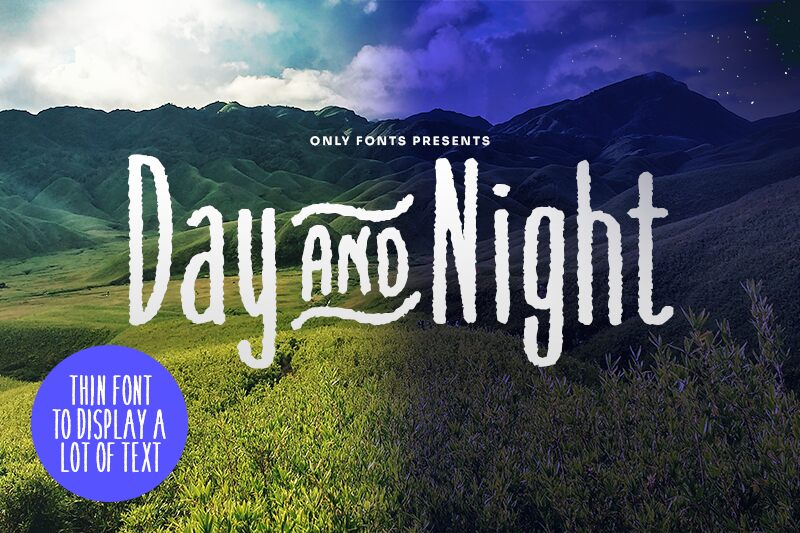
Unleash the captivating essence of "Day and Night," a handwritten font crafted by Only Fonts. This narrow, condensed marvel effortlessly captivates with its rough, authentic charm, even in small sizes. The alluring dance of bold strokes and gentle curves creates a mesmerizing visual symphony, evoking a sense of warmth and individuality.
Versatile and adaptable, "Day and Night" seamlessly integrates into a wide array of design contexts, from elegant stationery to modern branding. Its narrow construction ensures efficient use of space, making it an ideal choice for projects where conciseness is paramount, such as packaging, signage, or social media graphics. Whether you seek to infuse your designs with a touch of handcrafted elegance or create a cohesive, visually striking aesthetic, "Day and Night" by Only Fonts is a captivating typographic solution.
Day&Night